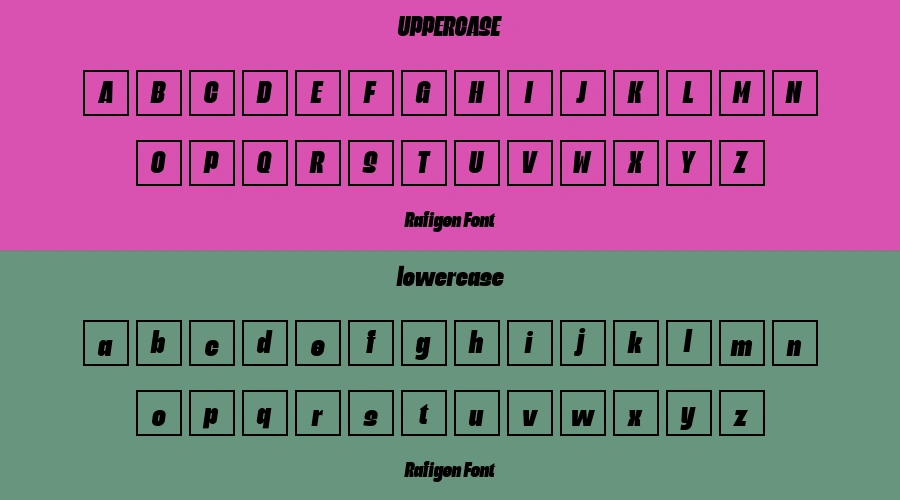
About Rafigen Font
Rafigen Font represents a sophisticated approach to type design, balancing bold expressions with color consistency. Perfect for poster art, this font family showcases impressive professionalism and ceremonial suitability throughout its character set. Designers appreciate its versatility and reliability.
Designers will appreciate nuanced touches including width contrast and arbitrary fractions, adding sophistication to any project. These features become apparent in research articles, where consumer preference matters most. The careful treatment of loop structure and creative versatility ensures optimal performance.